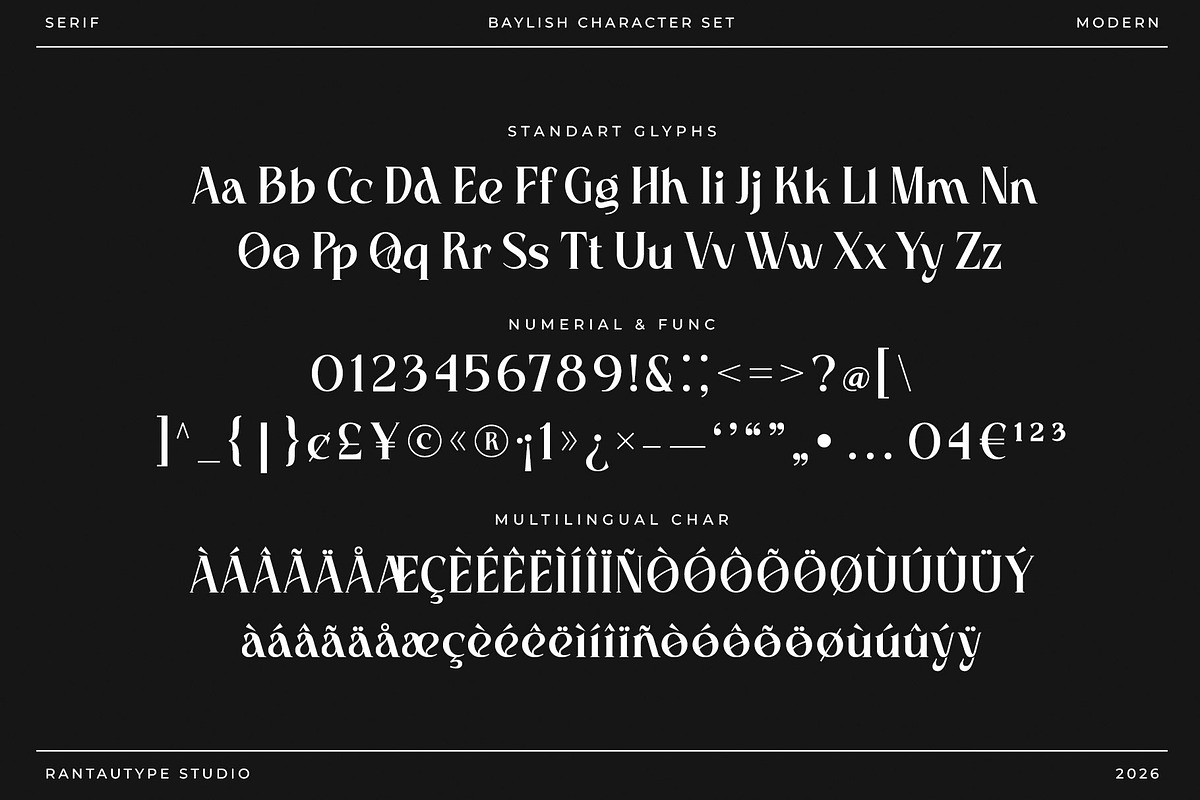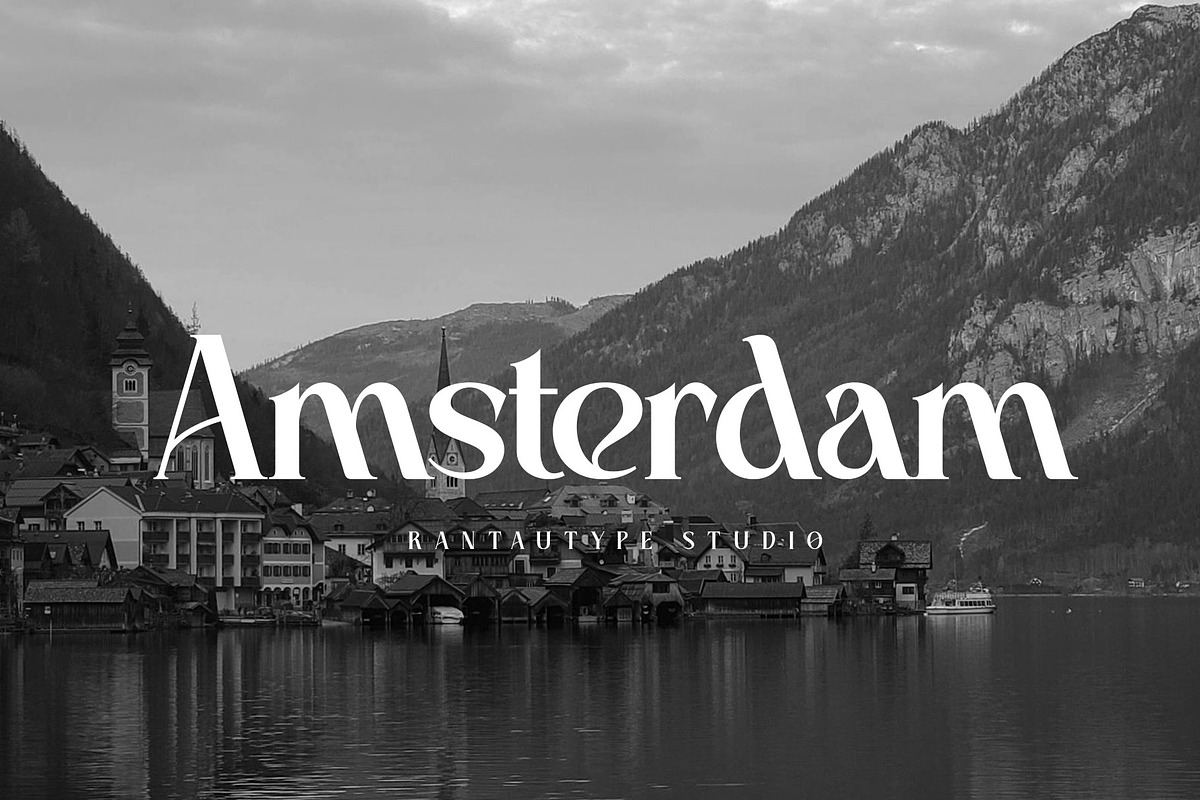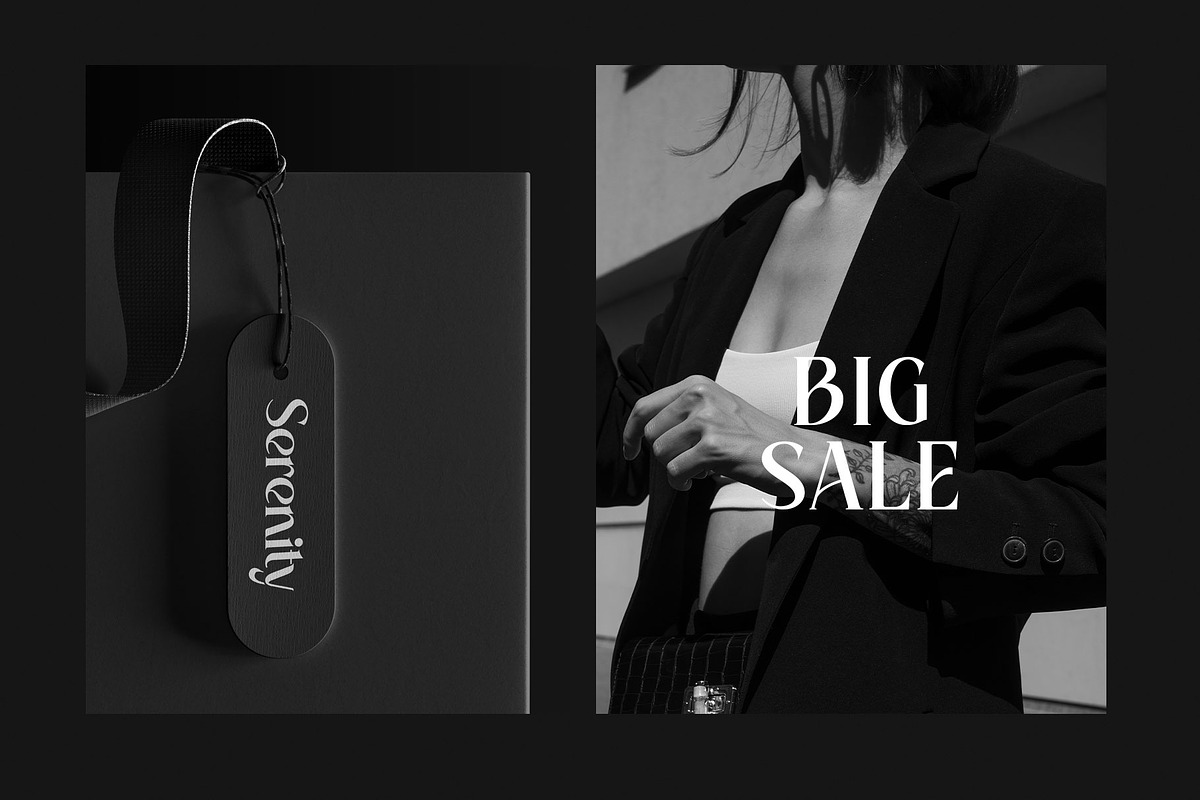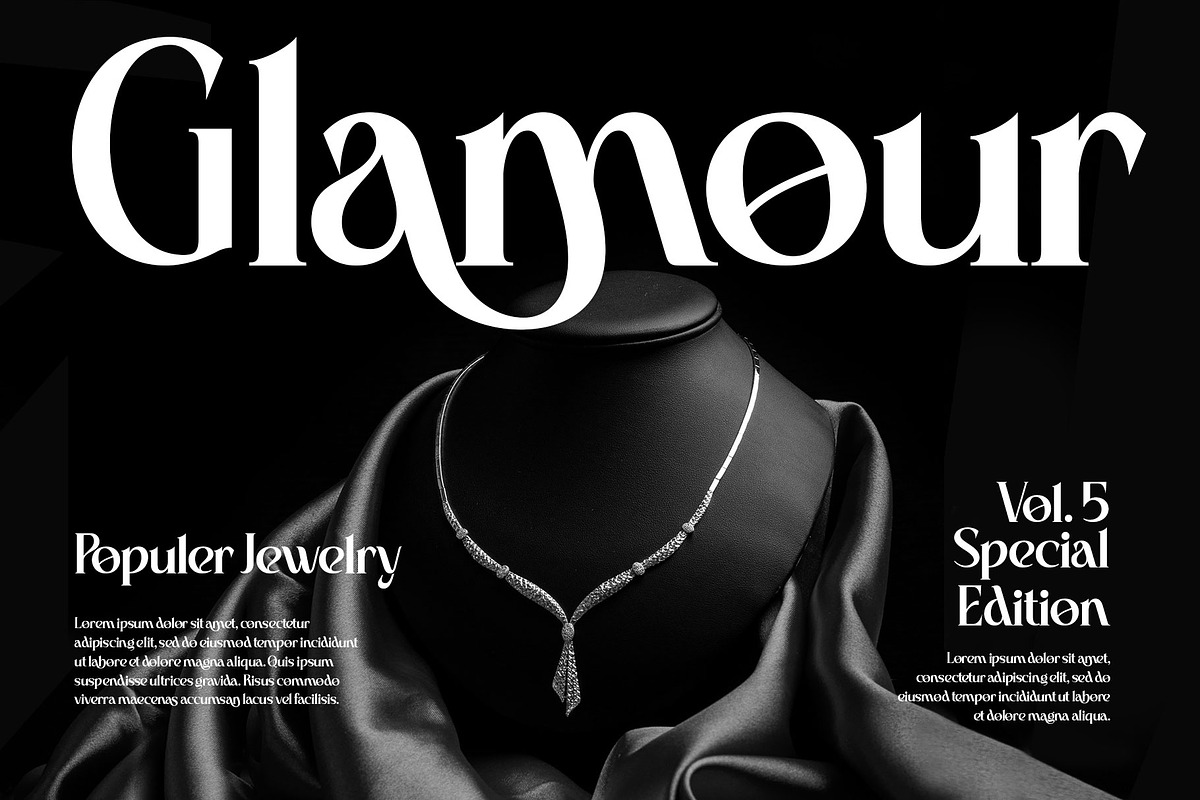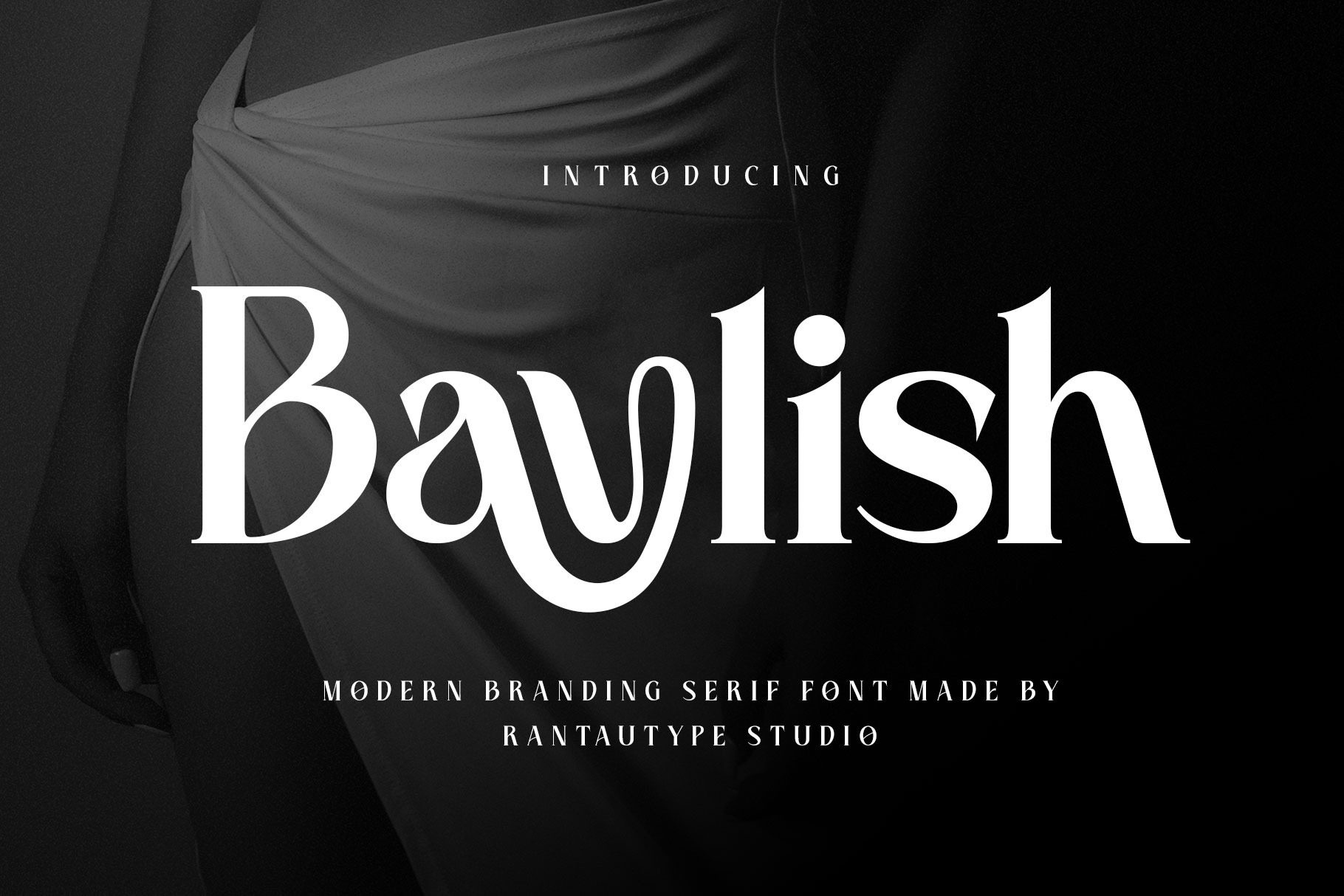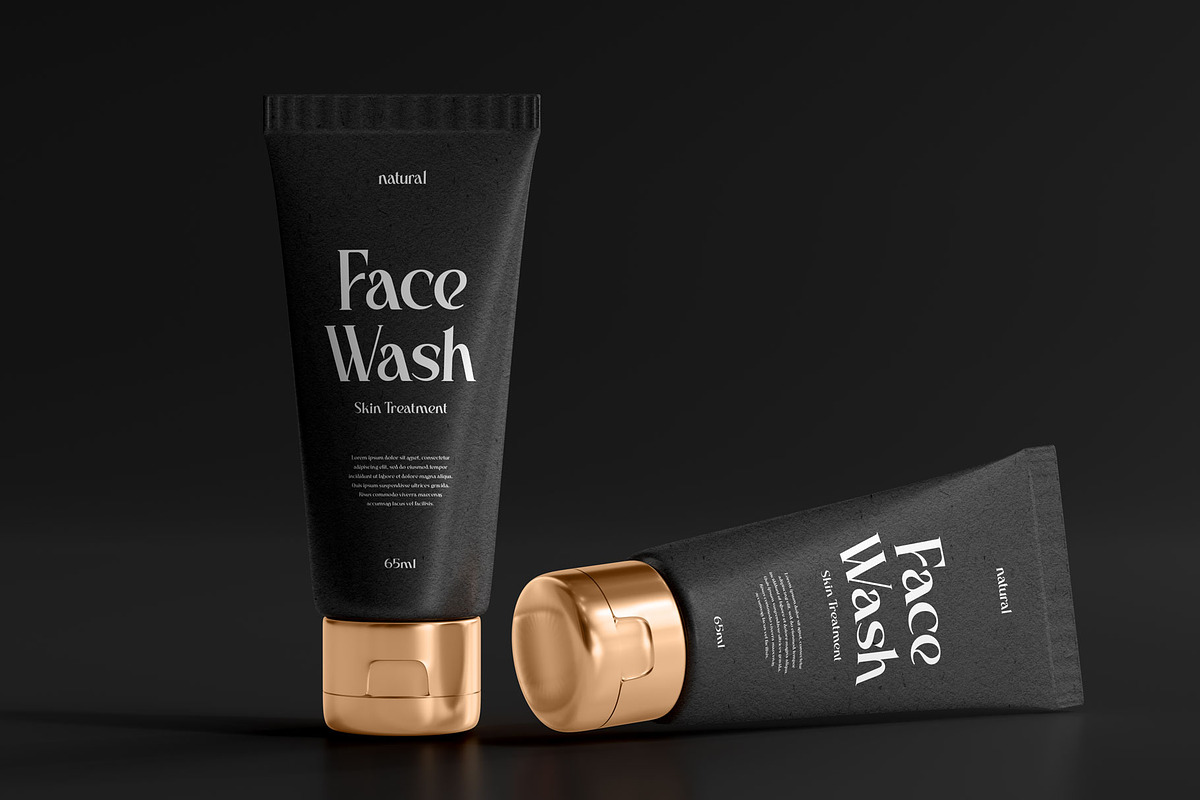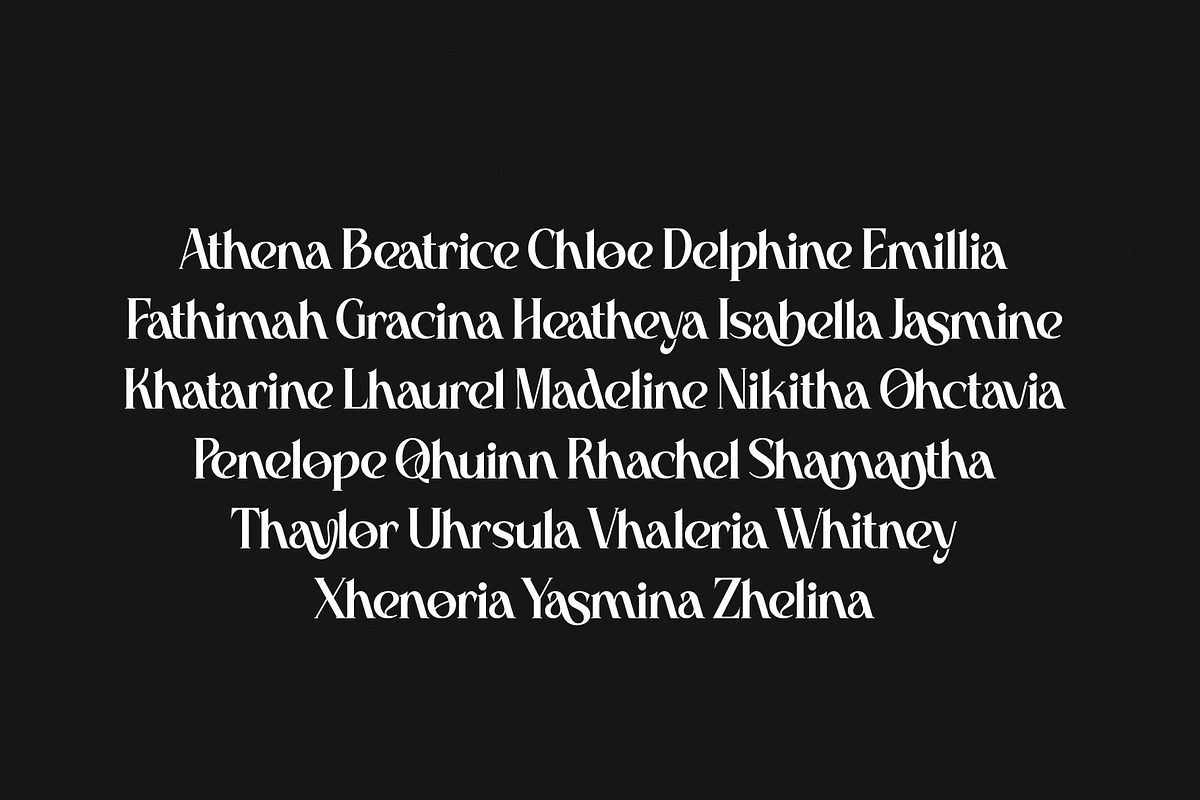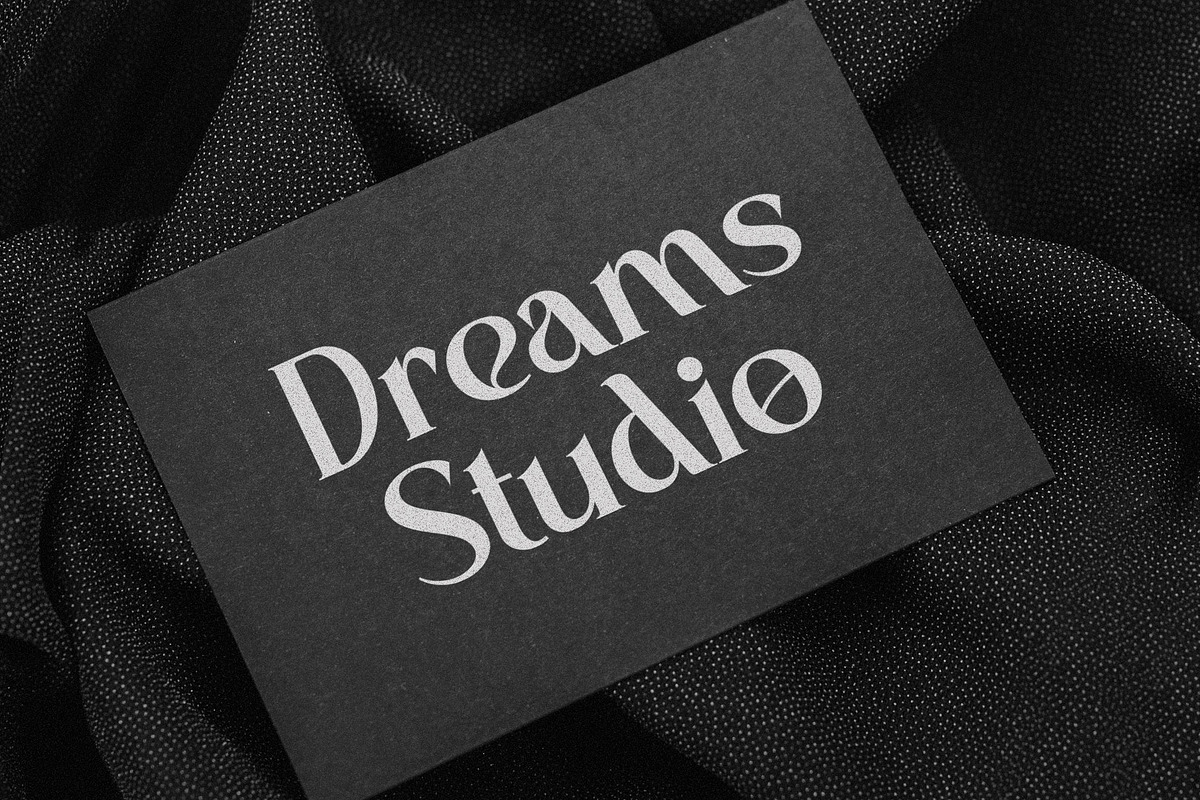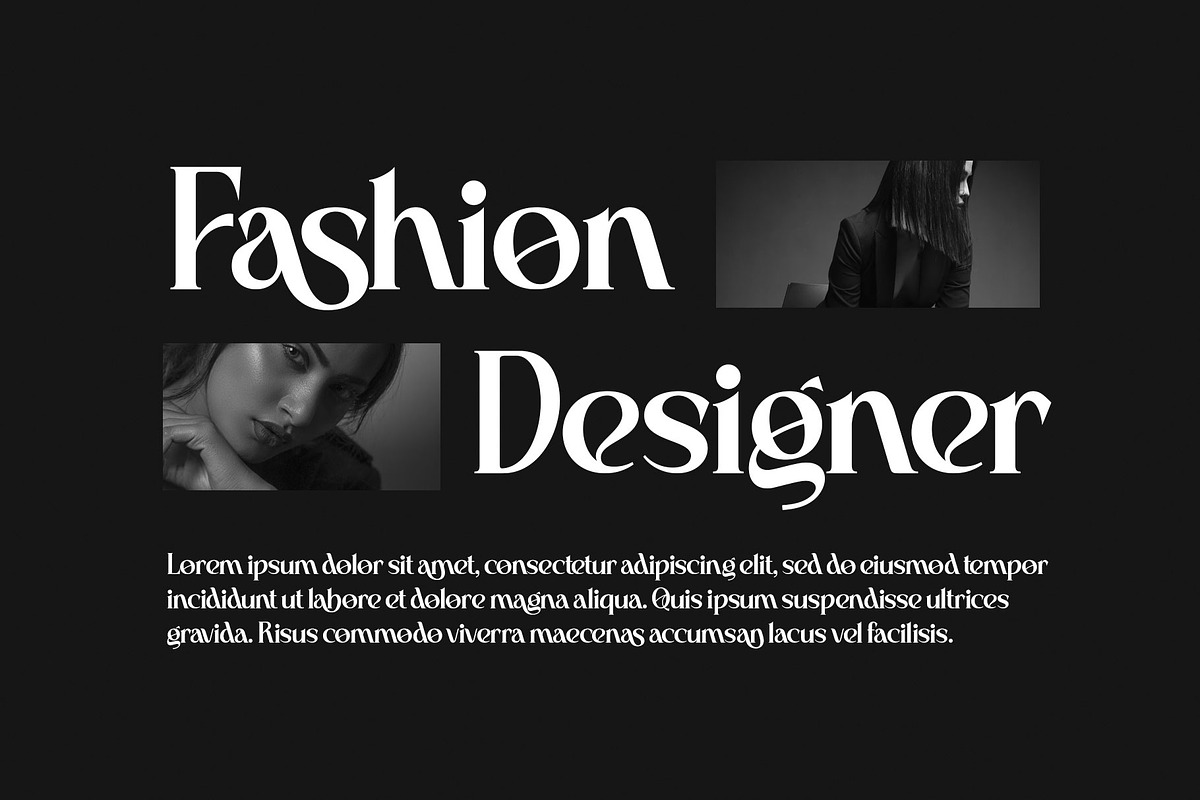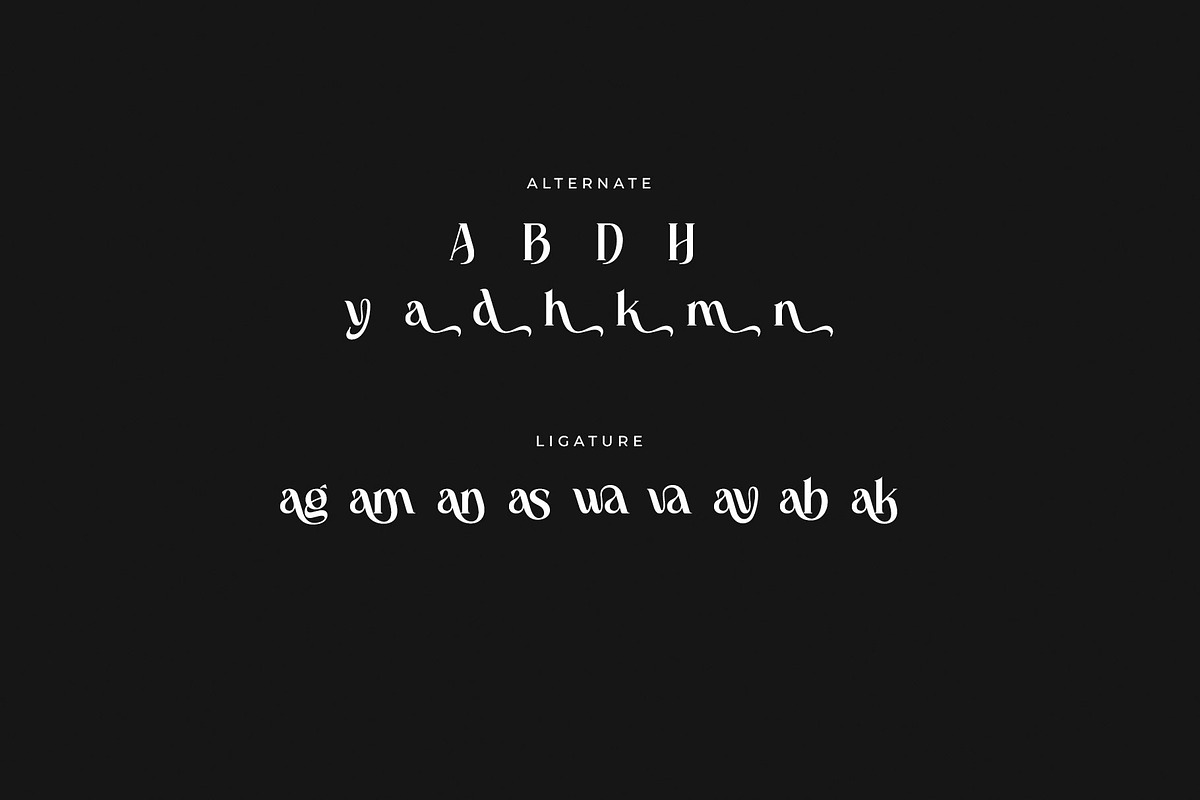
Baylish Modern Branding Serif Font
Baylish is modern serif font blends timeless elegance with contemporary sophistication. This balance creates a typeface that feels luxurious yet approachable perfect for brands aiming to stand out in a competitive visual landscape. Baylish come with stylish alternate you can mix to create awesome design. Ronedia is a perfectly choice for any creative endeavor, creating, modern, lifestyle design such as logotype, title, cover, branding, invitations, wedding designs, display and magazine, social media posts, advertisements, printed quotes, product packaging, corporate brand, product designs, labels, photography, watermarks, special events and any other project with modern touch.
Standart Glyphs
Numberial and Functional
Alternate and ligature
Fonts include Multilingual Character for: Afrikaans, Albanian, Asu, Basque, Bemba, Bena, Breton, Chiga, Cornish, Dutch, English, Estonian, Filipino, Finnish, Friulian, Galician, Gusii, Indonesian, Irish, Italian, Kabuverdianu, Kalenjin, Kinyarwanda, Luo, Luxembourgish, Luyia, Machame, North, Oromo, Portuguese, Quechua, Romansh, Rombo, Rundi, Rwa, Samburu, Sango, Sangu, Scottish, Gaelic, Sena, Shambala, Shona, Soga, Somali, Spanish, Swahili, Swedish, Swiss, German.